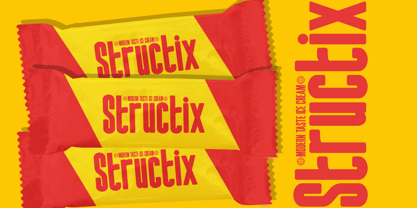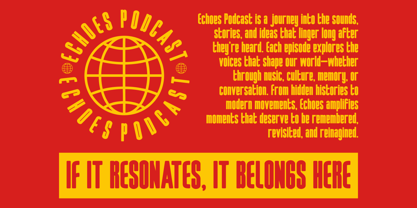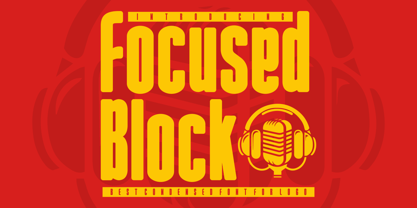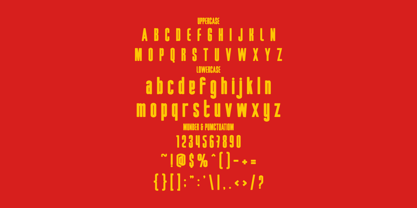
Focused Block
The Focused Block Font Family was designed by Yesie Erma Yunita and published by Shanaf. Focused Block contains 2 styles and family package options. More about this family
Focused Block Condensed Font is a bold display typeface built with striking vertical proportions and a clean condensed form. Each letter is designed with sharp edges and compact spacing, giving the font a commanding presence while conserving space. The style emphasizes modern professionalism, making it ideal for logos, packaging, editorial layouts, or posters that require maximum readability with a bold impression. Its tall, narrow construction enhances hierarchy in design, ensuring headlines and branding materials capture attention instantly.
This font is versatile for both digital and print applications, from magazine titles to business logos and marketing campaigns. The condensed form works especially well in limited space layouts, while its bold strokes maintain legibility across all sizes. Designers can rely on this font for creating impactful corporate branding, promotional posters, or strong cover designs. Focused Block Condensed Font combines clarity with authority, making it a powerful choice for projects that demand both professionalism and visual strength.